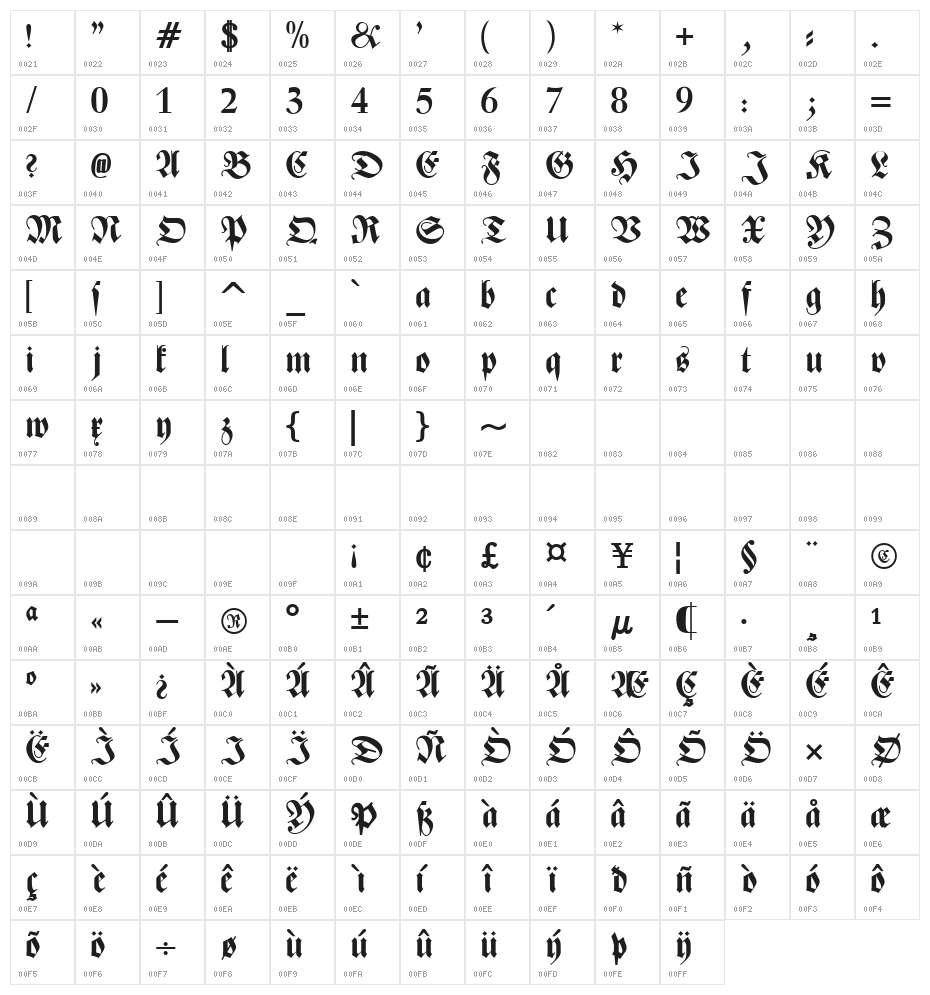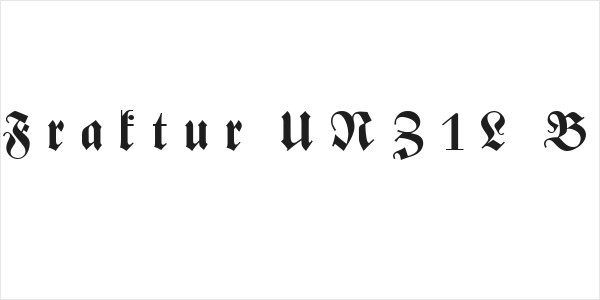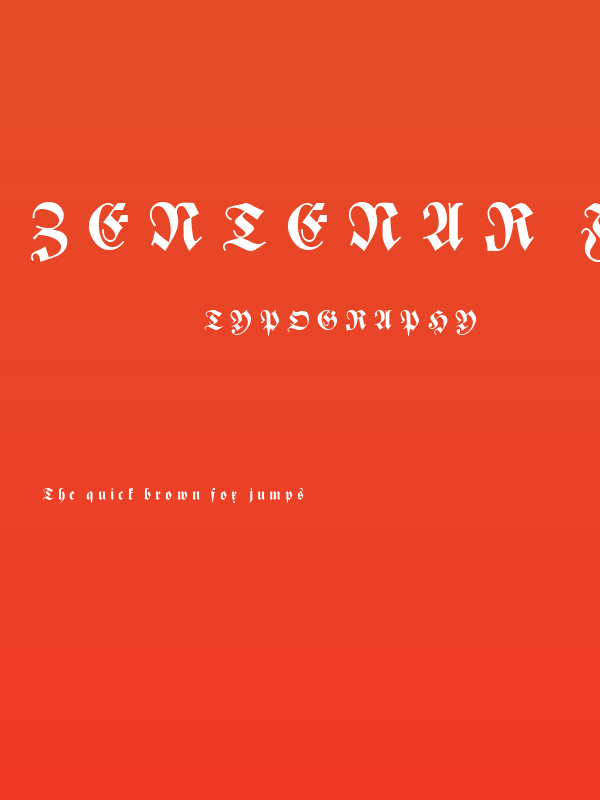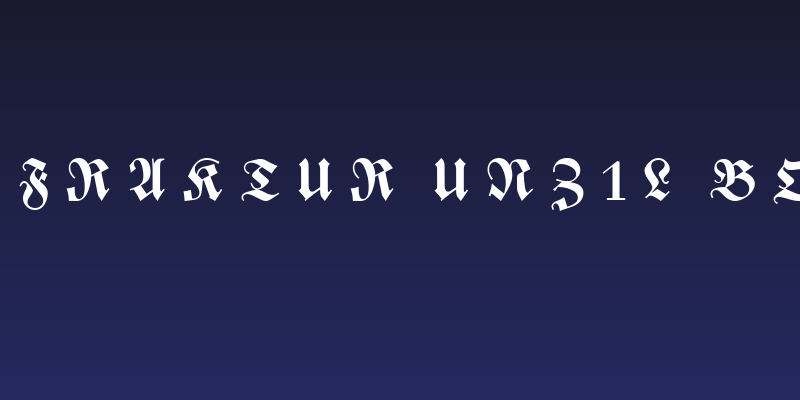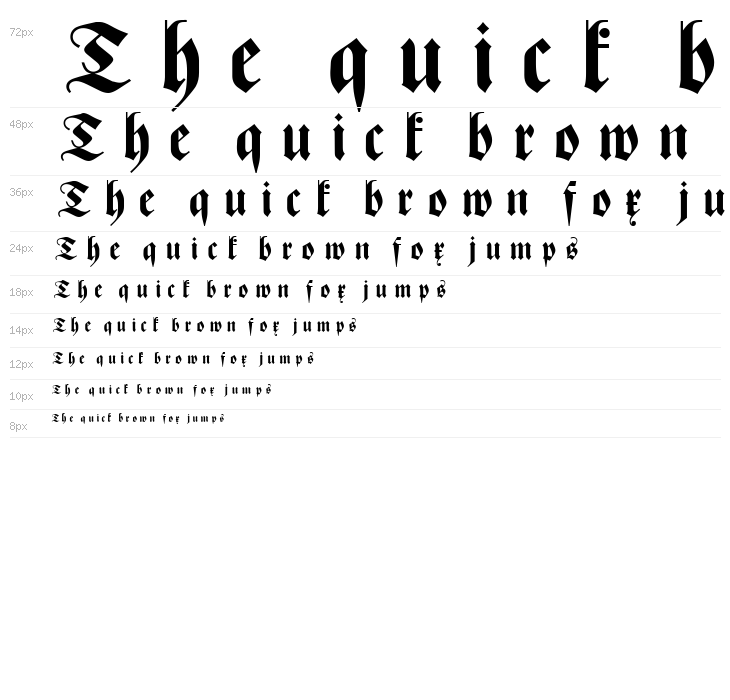
Zentenar Fraktur UNZ1L Bold Italic Font
Zentenar Fraktur UNZ1L Bold Italic Description
This font features a traditional blackletter style, characterized by its intricate and ornate design. The uppercase letters are bold and angular, with sharp serifs and decorative flourishes that give them a historic and authoritative appearance. The lowercase letters maintain the same level of detail, with a slightly more condensed form that enhances readability while preserving the font's distinctive style. Numbers are consistent with the overall aesthetic, featuring the same bold strokes and decorative elements. Special characters are equally ornate, ensuring a cohesive look across all text elements. This font's bold and italicized nature adds a dynamic and expressive quality, making it suitable for impactful and dramatic text presentations.
| Use Case | Headlines, Logos, Certificates |
| Proposed Projects | Ideal for historical documents, certificates, book covers, and branding that requires a classic and authoritative look. |